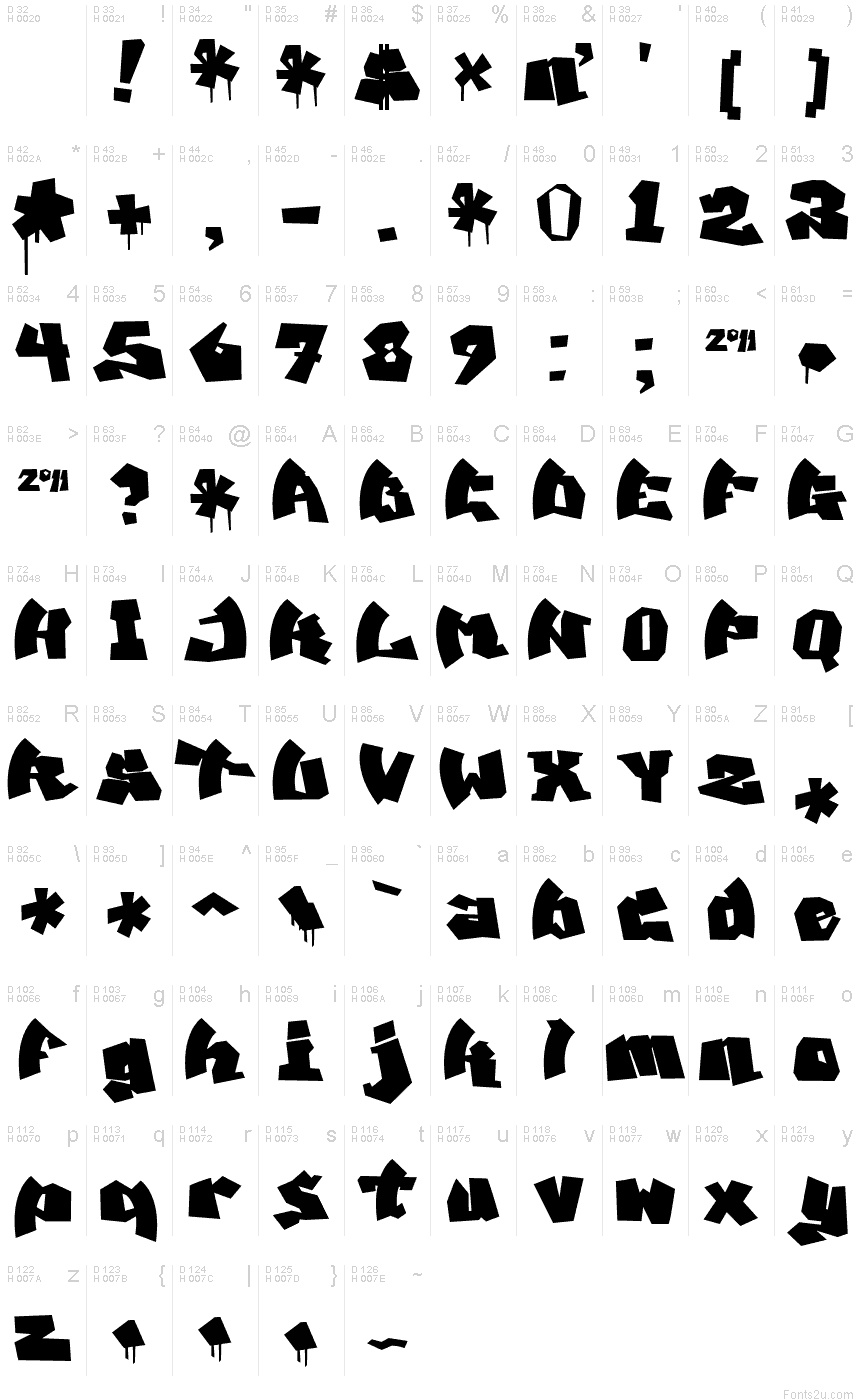
MAWNS Graffiti is a free graffiti display font with oversized, tightly packed letters and a blunt cut-paper silhouette. Sharp notches, slanted joins, and uneven edges give the lettering the restless look of a quickly assembled street tag, but the broad forms remain solid and forceful.
Streetwear labels and youth-oriented music projects are the clearest audience for its raw, crowded style. It can also shape poster titles, skate merchandise, and event graphics with an abrasive urban edge. In illustrated work, the dense letter masses can become part of a wall texture or collage, linking the lettering directly to torn-paper shapes, spray marks, and layered city imagery.